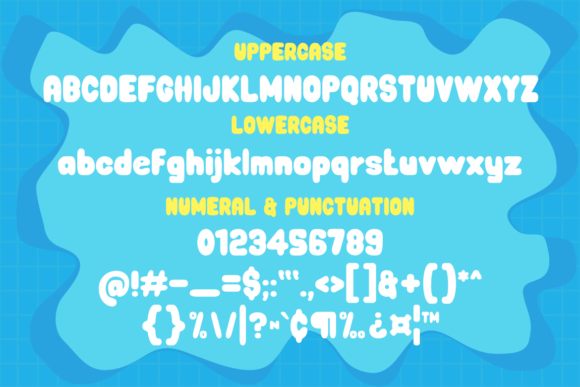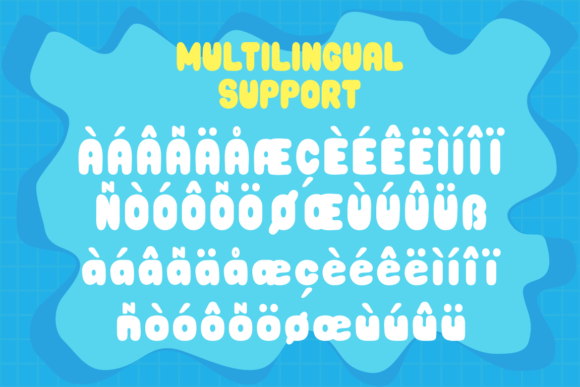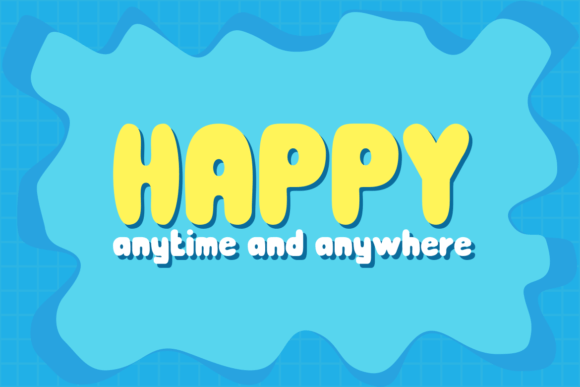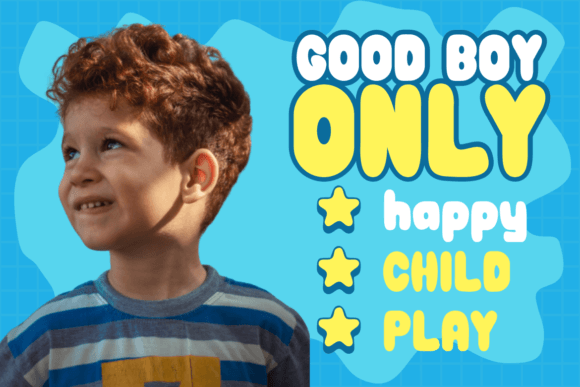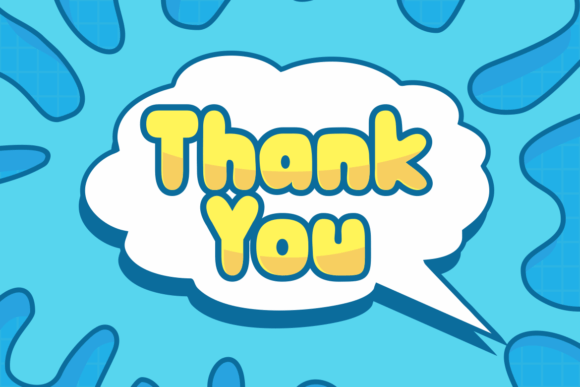
Blubux Font: The Ultimate Choice for Playful and Youthful Designs
When it comes to creating designs that appeal to children or have a playful nature, choosing the right font is crucial. One font that has gained popularity among designers and crafters is the Blubux Font. This font has round and wide letter shapes with curved corners, giving a soft and friendly impression that conveys a more youthful and cheerful feel.
Characteristics of Blubux Font
The Blubux Font is characterized by its unique and distinctive features. The font has:
- Round and wide letter shapes that give a soft and friendly impression
- Curved corners that add to the font’s playful and youthful feel
- A clean and simple design that makes it easy to read and understand
Why Choose Blubux Font?
There are several reasons why designers and crafters choose the Blubux Font for their designs:
- Playful and youthful feel: The font’s unique features make it perfect for designs aimed at children or those with a playful nature.
- Easy to read: The clean and simple design of the font makes it easy to read and understand, even for young children.
- Versatile: The Blubux Font can be used for a variety of designs, including posters, flyers, brochures, and more.
- Unique and distinctive: The font’s unique features make it stand out from other fonts, making it perfect for designers who want to create unique and memorable designs.
Uses of Blubux Font
The Blubux Font can be used for a variety of designs, including:
- Children’s products: The font is perfect for designing products for children, such as toys, books, and games.
- Playful posters and flyers: The font’s playful and youthful feel makes it perfect for designing posters and flyers for events, promotions, and more.
- Crafting and DIY projects: The font is also popular among crafters and DIY enthusiasts who use it to create unique and personalized projects, such as handmade cards and gift tags.
Tips for Using Blubux Font
Here are some tips for using the Blubux Font effectively:
- Use it with bright and bold colors: The font’s playful and youthful feel pairs well with bright and bold colors that add to its cheerful vibe.
- Experiment with different sizes and styles: The font can be used in different sizes and styles to create visual interest and add emphasis to certain words or phrases.
- Pair it with other playful fonts: The Blubux Font can be paired with other playful fonts to create a unique and memorable design.
The Blubux Font is a popular choice among designers and crafters who want to create playful and youthful designs. Its unique features, including round and wide letter shapes with curved corners, give it a soft and friendly impression that conveys a more youthful and cheerful feel. With its versatility, ease of use, and unique design, the Blubux Font is perfect for a variety of designs, from children’s products to playful posters and flyers.
Overall, the Blubux Font is a great choice for designers and crafters who want to add a playful and youthful touch to their designs. Its unique features, versatility, and ease of use make it a popular choice for a variety of designs.